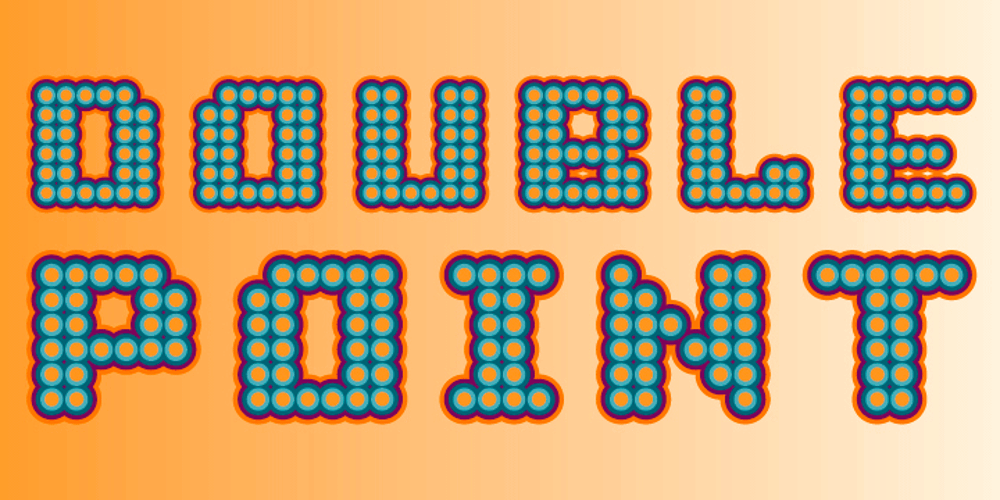
Doublepoint Font Family was designed by Lars Harmsen, Boris Kahl and published by Volcano Type. Doublepoint contains 6 styles and family package options. The double amount of Monopoint is Doublepoint – Isn’t that simple? By overlaying the single weights from light to bold you will get a nice outline-in-outline look.